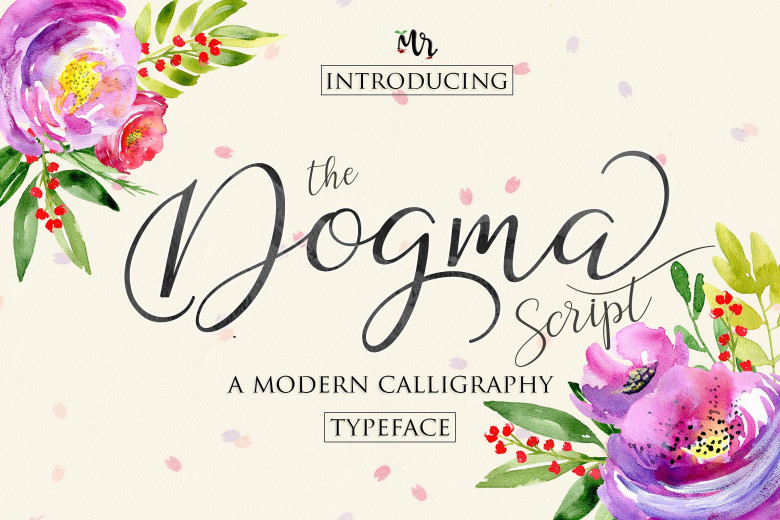
Dogma Script Font
Introducing Dogma. Dogma is an created by MrLetters. Dogma font is a kind of handwriting calligraphy with new and modern hand scratches. This typeface has been added with various alternative characters up to 439 glyphs. This type of writing is perfect for logos, fashion, stationery, magazines, menus, books, invitations, greeting cards, packaging, labels, apparel, marketing, business cards, etc.